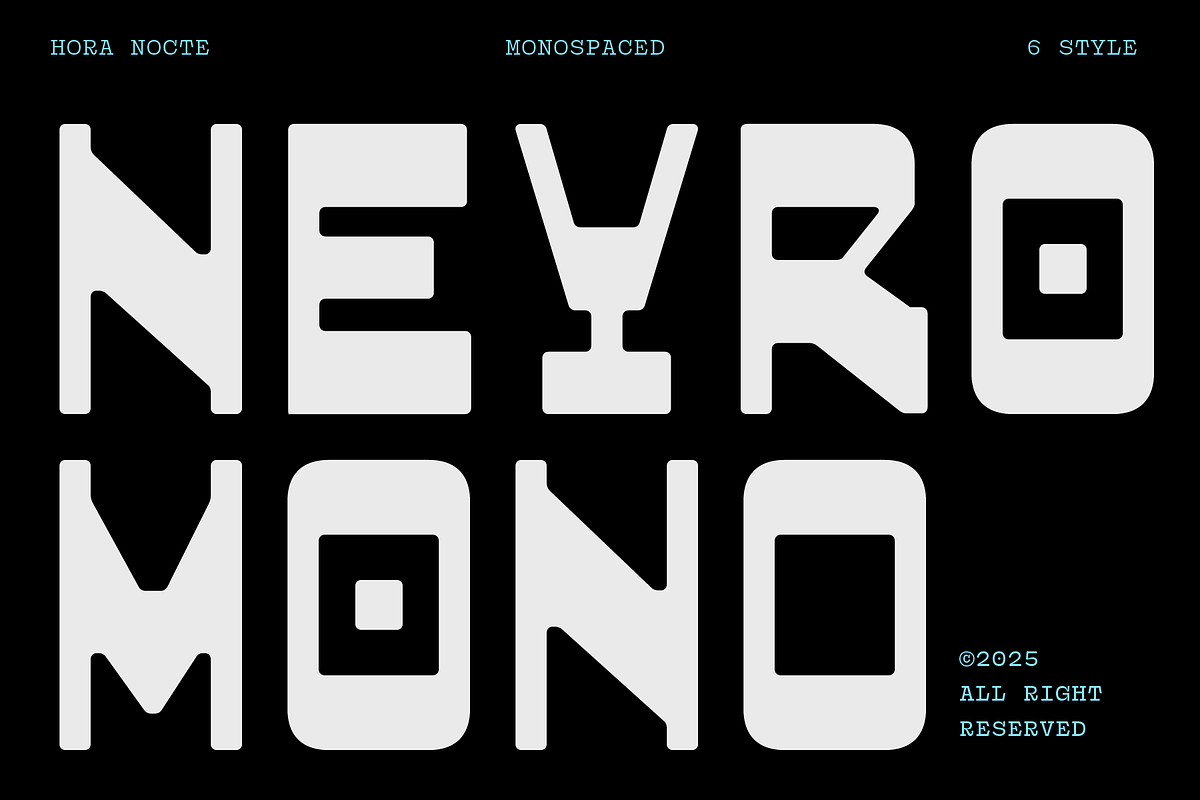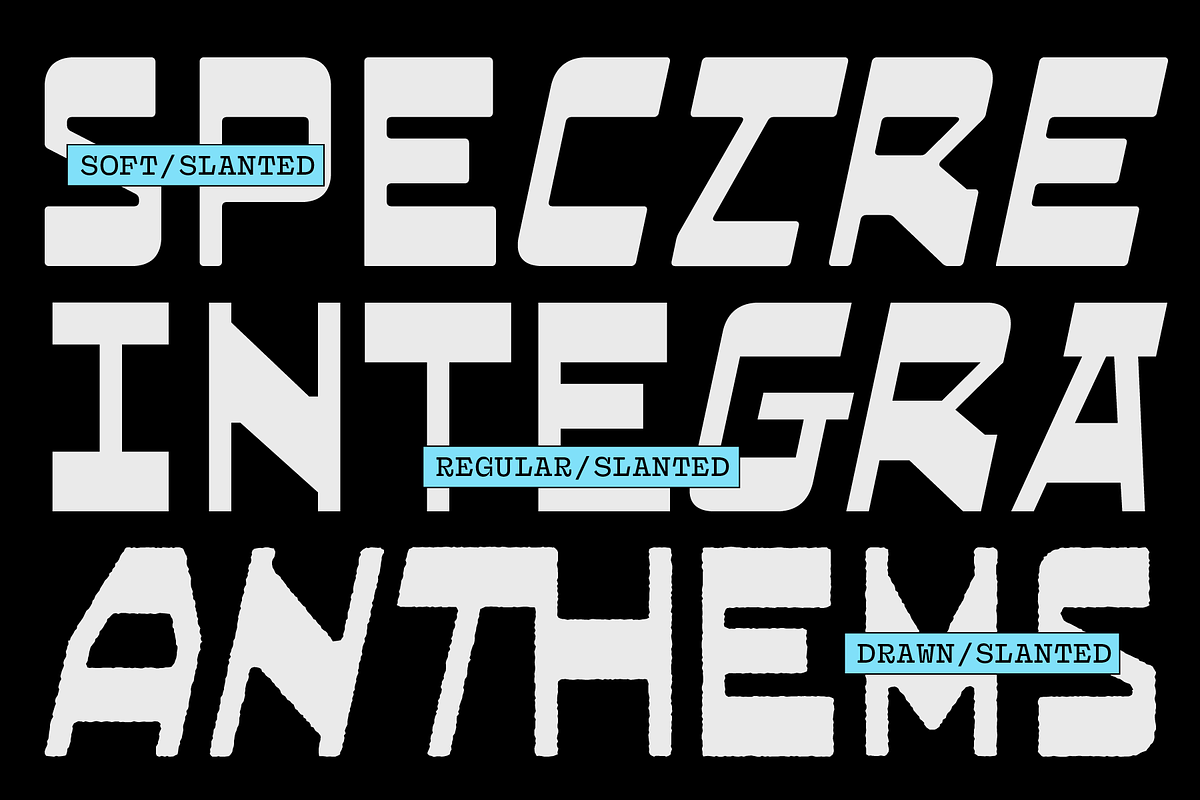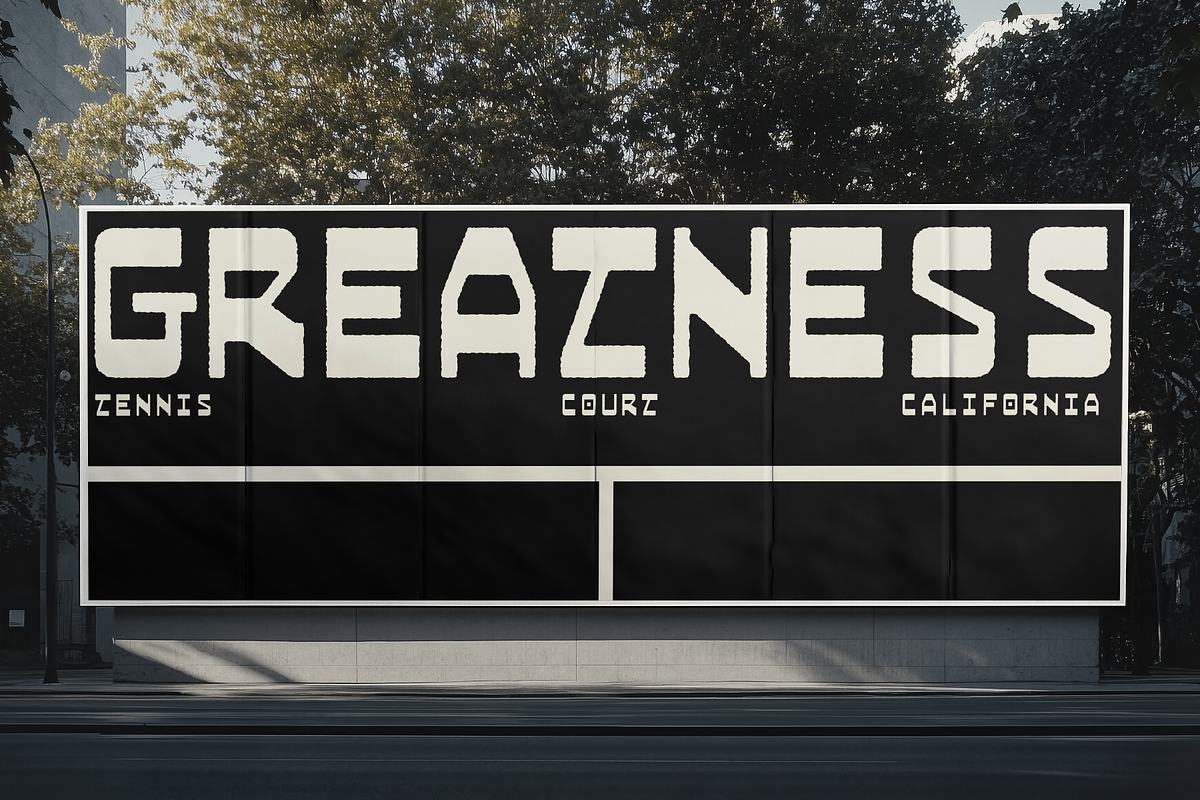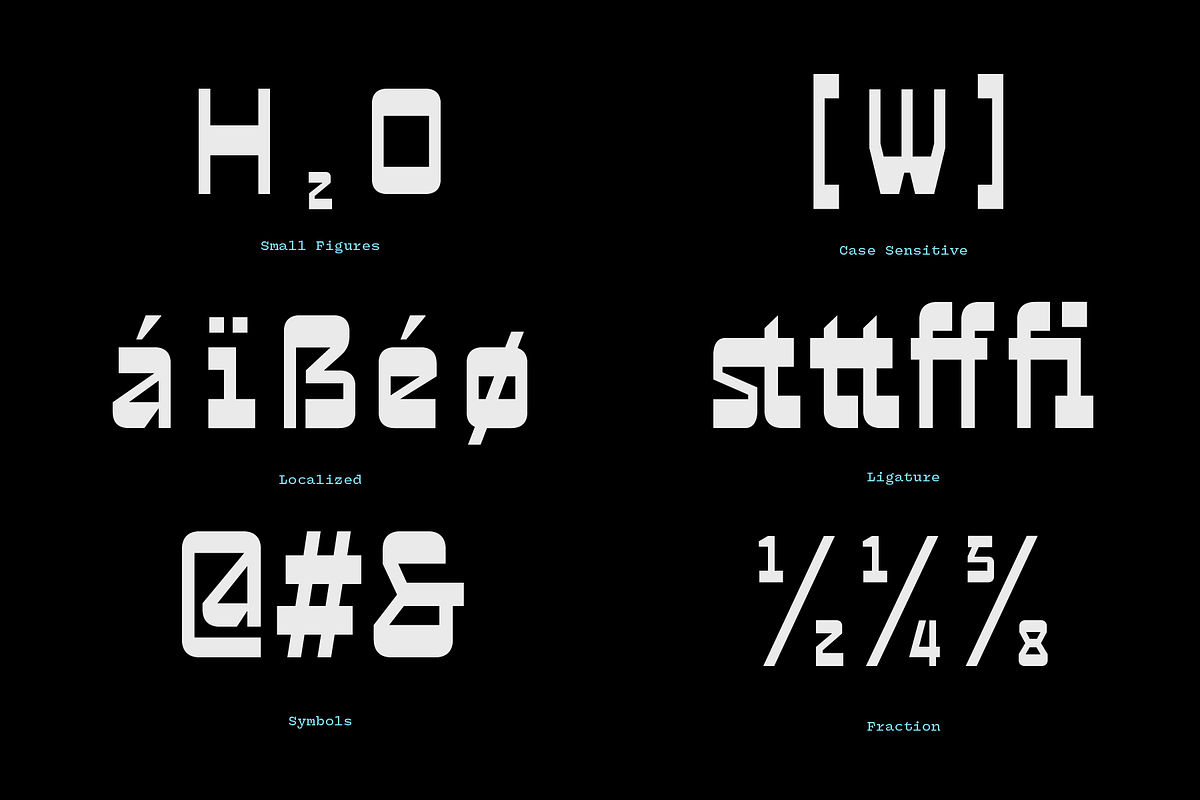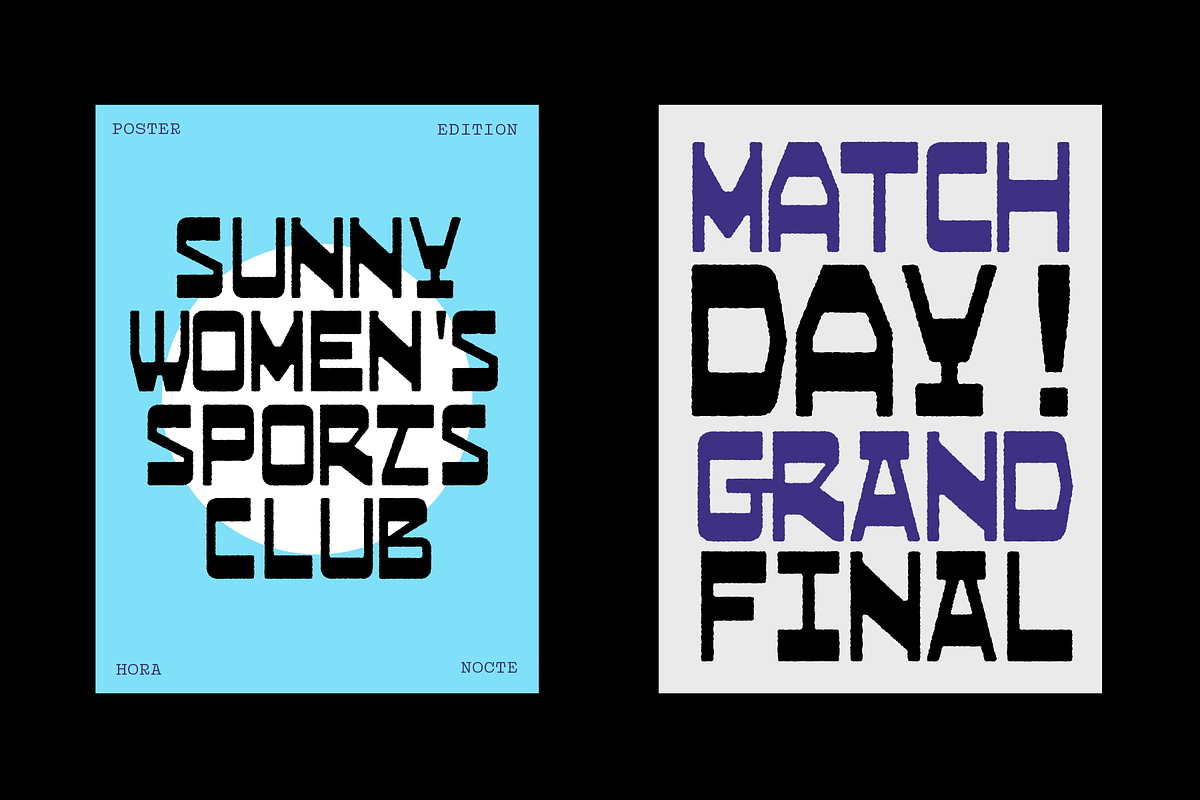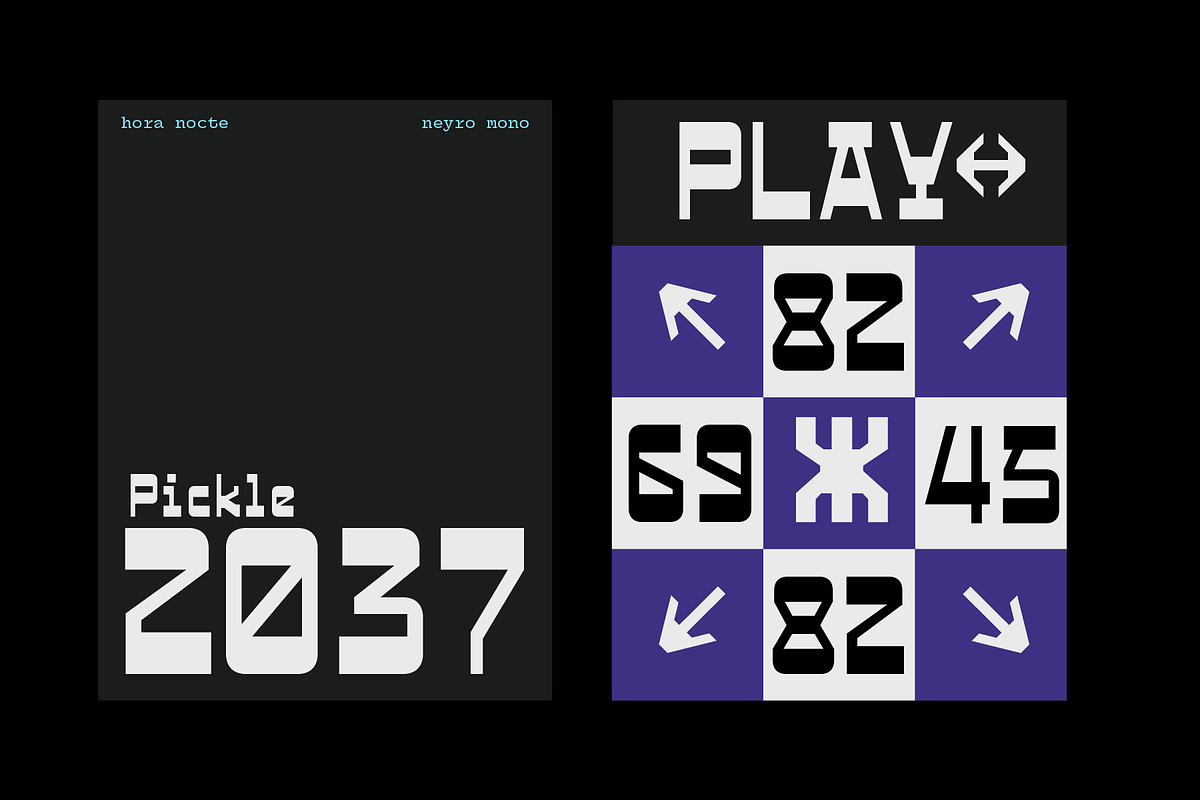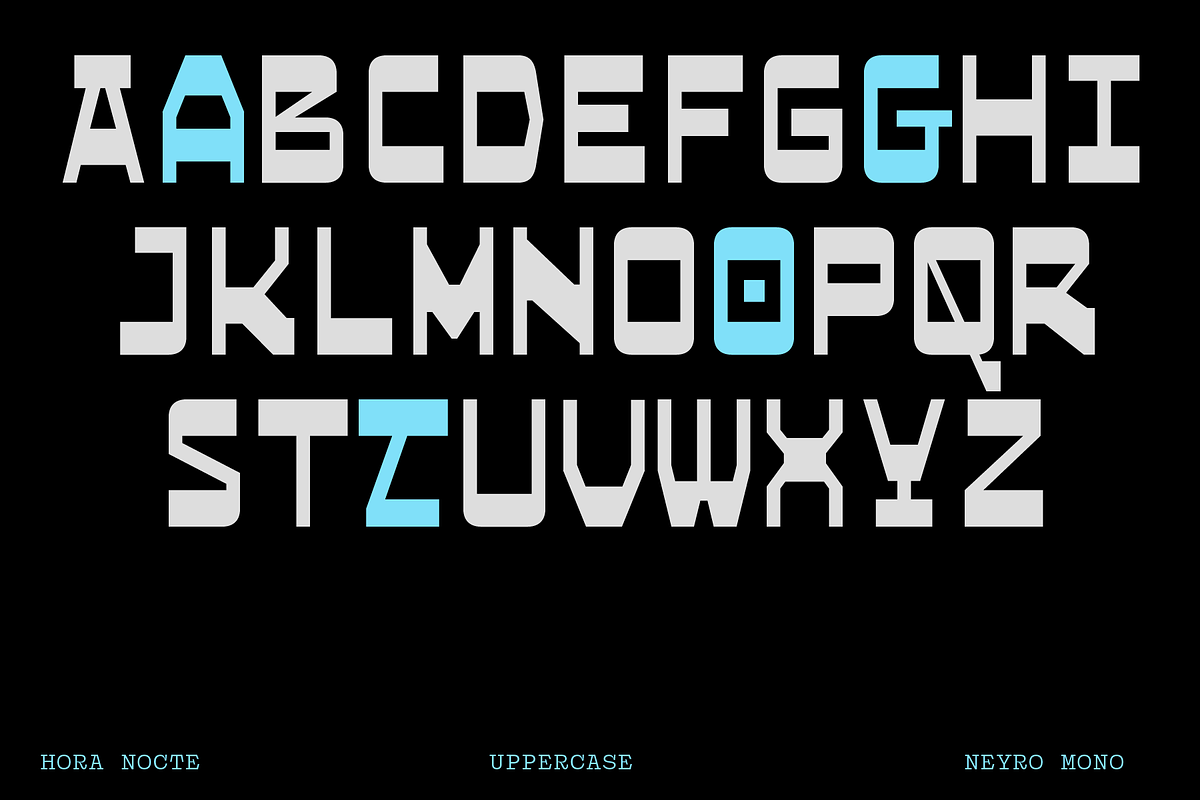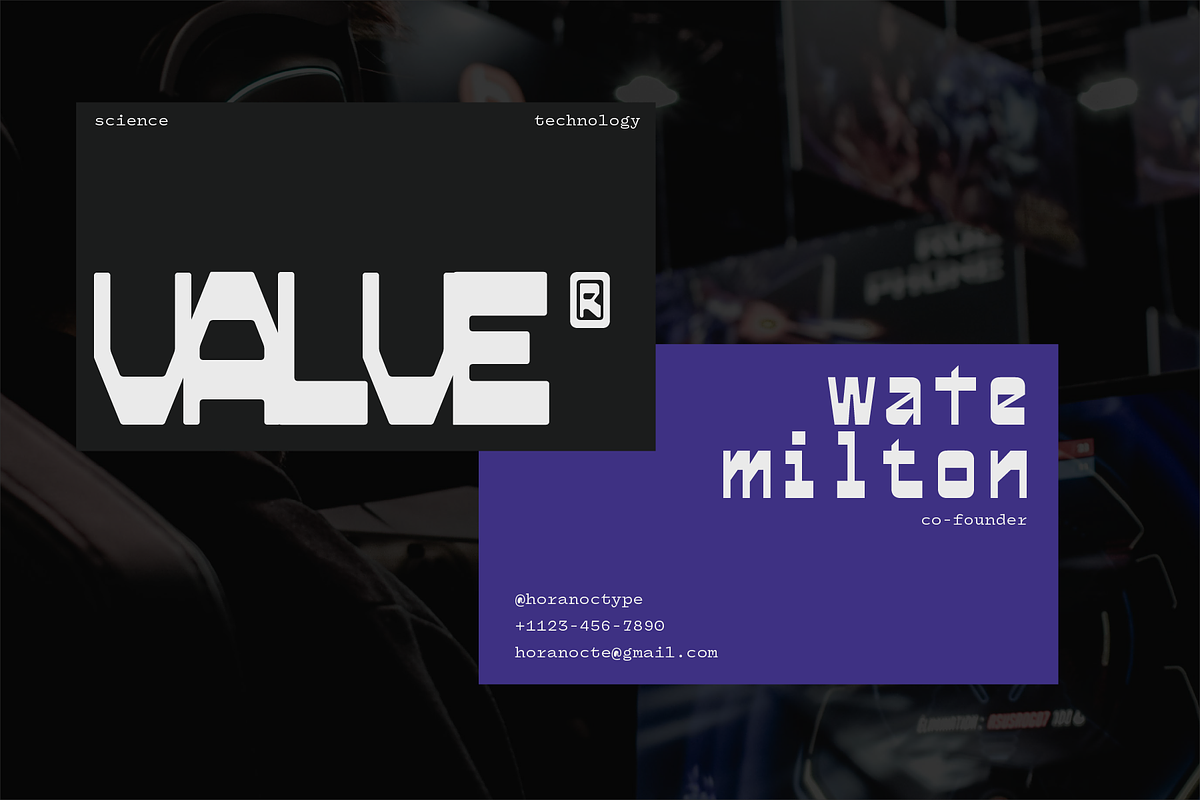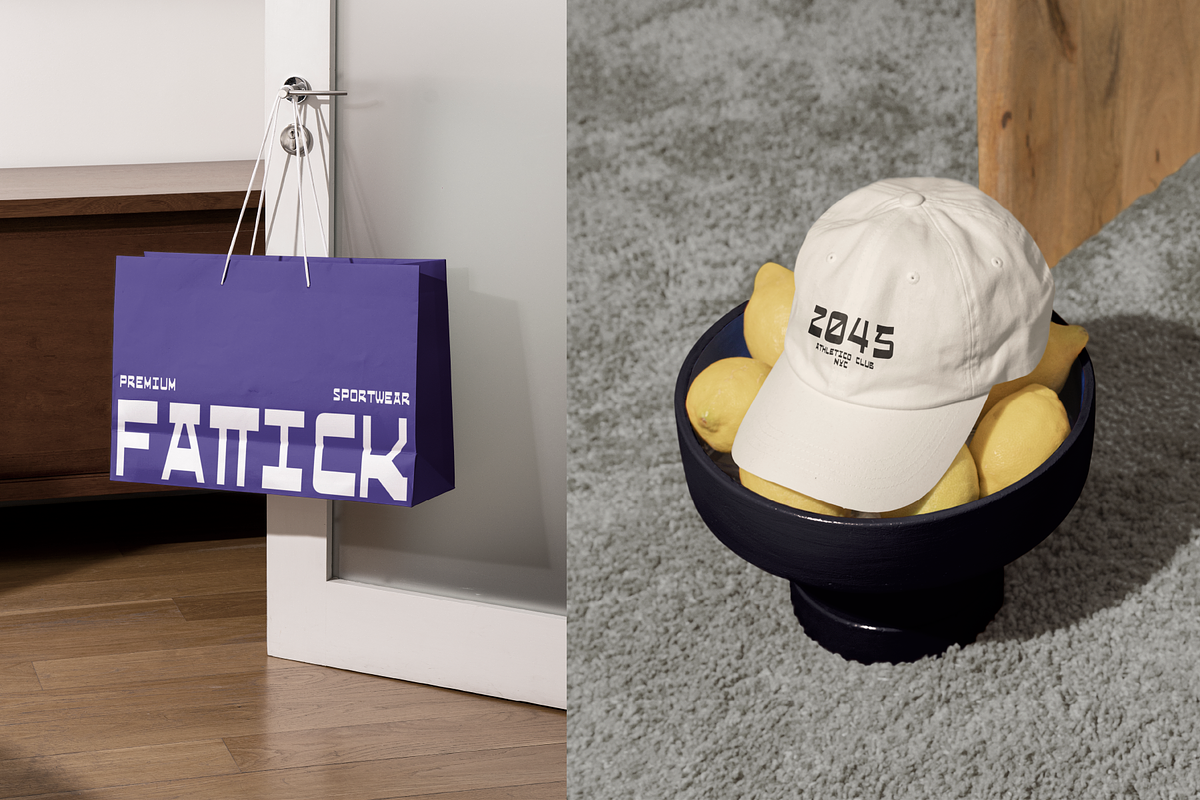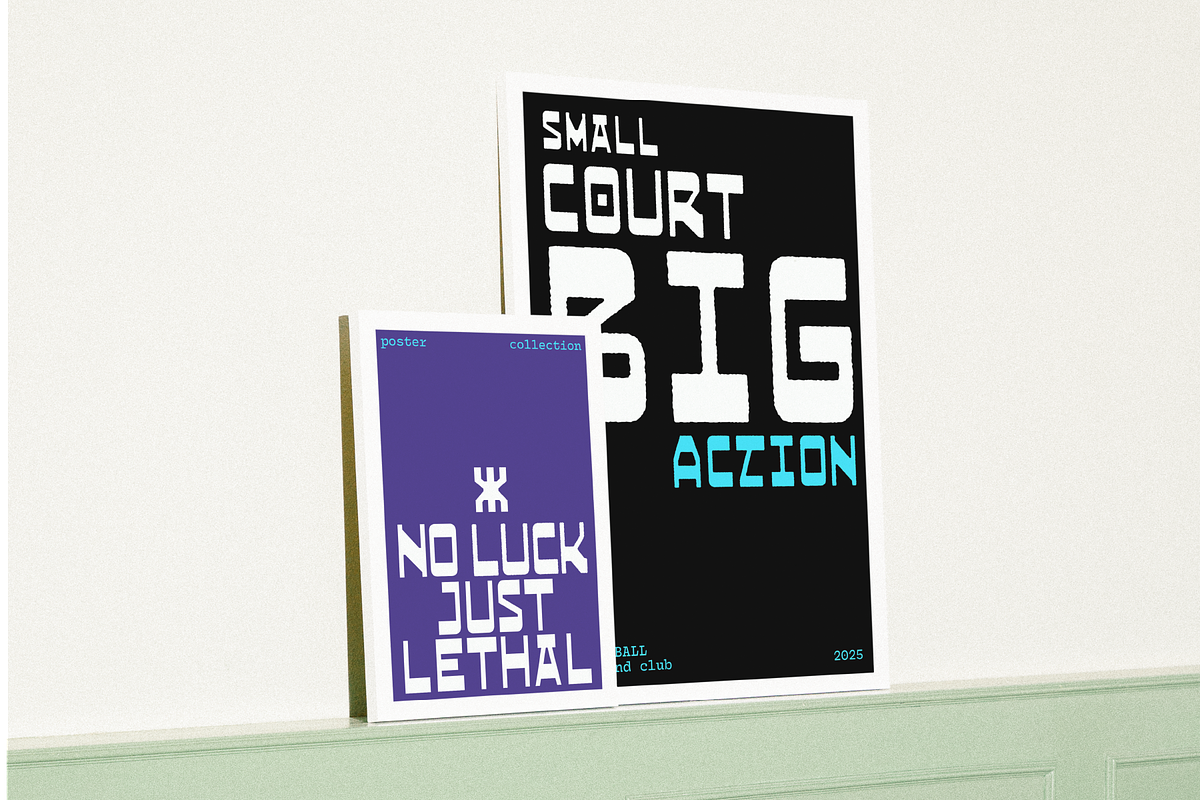
HN Neyro Mono
HN Neyro Mono: Geometric Monospaced Elegance
A display typeface for designers who value precision and a clear, distinctive voice. Its geometric, monospaced structure gives layouts a measured rhythm, while keeping letterforms sharp and expressive. Designed by hora nocte, this family fits modern typography needs where clarity and character must work side by side.
HN Neyro Mono includes six unique styles, including Regular, Soft, Drawn, and Slanted versions. This range supports flexible art direction across print and digital work, from bold statements to more nuanced compositions. Use it when you want a visually distinctive typographic solution that reads confidently and holds attention.